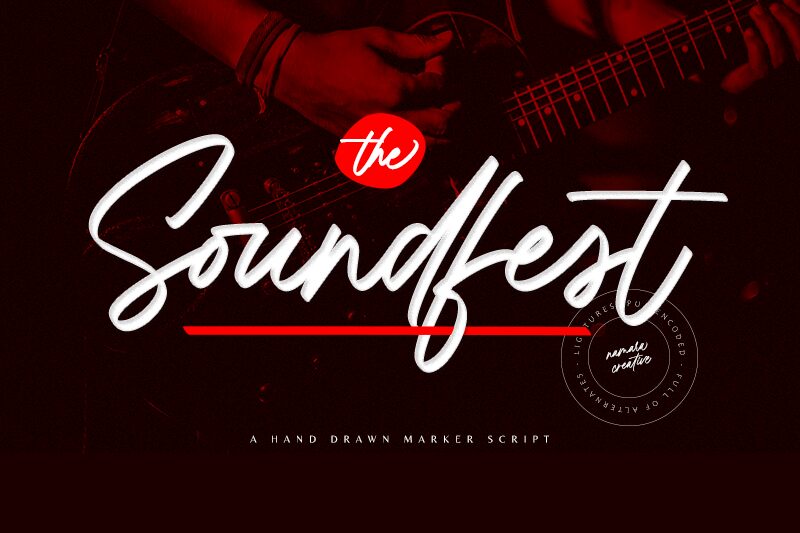
Soundfest font by Namara Creative is a handwritten free font with artistic lettering and great human emotions in display. Inspired by music and festivals or what usually goes with them like bands, singers, crowds, instruments and such – Soundfest is a pretty font that is 100% hand sketched. Some letters are connected, others aren’t – and sometimes both rules apply within the same glyph. But the font is very balanced and looks uniform despite the coherent variety present.
Create band materials and music albums, posters, vouchers for a club, or maybe a food festival where you get the chance to taste something unique along with the band playing in the background. Write your own albums, create T-shirts and wear entertainment on yourself every day with a new quote.
Soundfest is a modern marker script font featuring carefully crafted letters that create a completely natural hand-drawn appearance. With over 450 characters, it includes alternate sets, ligatures, and multilingual support, making it versatile for various design projects.